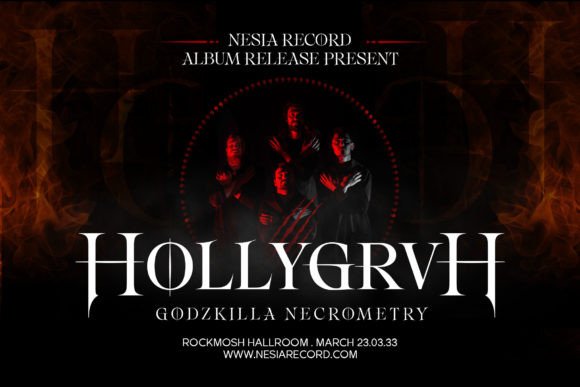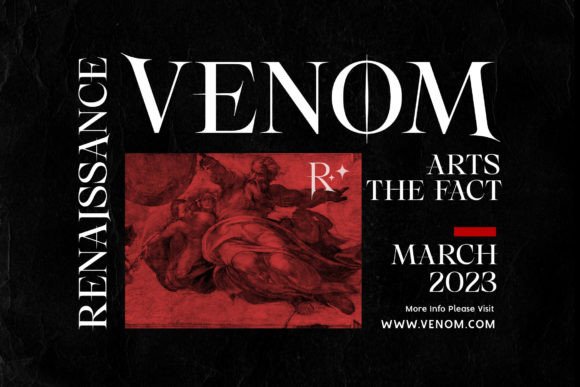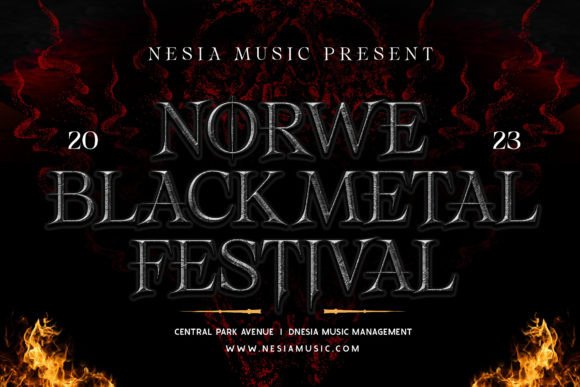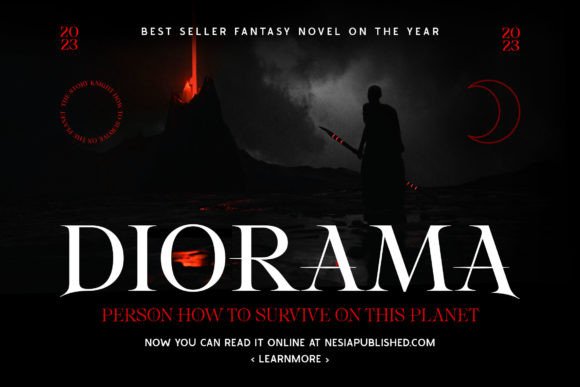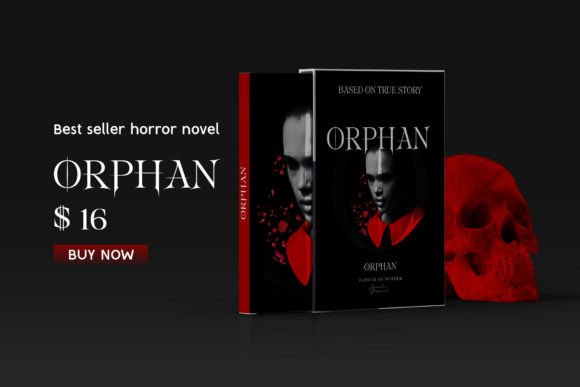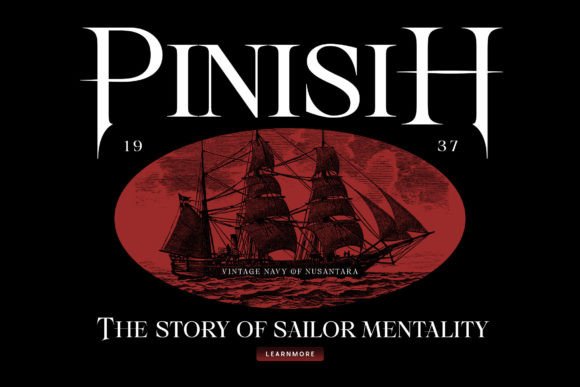
Introduction to Rockmosh Font
Have you ever stared at a blank canvas, wondering how to bring your creative vision to life? You’ve got a concept, a message, and a style in mind, but the right typography seems elusive. That’s where the Rockmosh Font comes in – a timeless, magical, and horror-inspired font that’s about to become your new best friend.
With its unique blend of dark elegance and mystical flair, the Rockmosh Font is a game-changer for designers looking to add an extra layer of sophistication to their projects. Whether you’re working on a logo, branding, or modern advertising design, this versatile font is sure to elevate your creative project and leave a lasting impression.
- High-quality design resource ideal for creative projects, including music and entertainment-related designs.
- Unique, bold, and edgy design aesthetic, making it perfect for use in graphic design, digital art, and other creative endeavors.
Honest Review: Rockmosh Font
I recently had the chance to work with the Rockmosh Font for a creative project, and I must say it’s been a game-changer. This font is a fantastic addition to any design resource, offering a unique and edgy vibe that’s perfect for music-related projects.
One of the standout features of Rockmosh Font is its high-quality design. The font is crisp and clear, making it easy to read and work with. Plus, it’s a free download, which is always a bonus for designers on a budget. The font also includes a transparent background, making it easy to customize and integrate into your design.
What works well: ✨ The font’s bold and edgy design makes it perfect for music-related projects, such as concert posters or album artwork. ✨ The transparent background makes it easy to customize and integrate into your design. ✨ The font is free to download, making it a great resource for designers on a budget.
Limitations: ⚠️ The font may not be suitable for all types of projects, such as corporate or business designs. ⚠️ The font’s bold design may be overwhelming for some users.
Overall, I’m really impressed with the Rockmosh Font. It’s a high-quality design resource that’s perfect for music-related projects. I would definitely recommend it to fellow designers looking for a unique and edgy font.
- Perfect for music-related projects
The Rockmosh Font is a free, high-quality design resource perfect for creative projects. This font offers a unique and eye-catching style that can elevate any design.
The Rockmosh Font is perfect for:
Music festival or concert promotions
Rock or heavy metal music branding
Edgy or alternative fashion designs
Any creative project that requires a bold, eye-catching font.